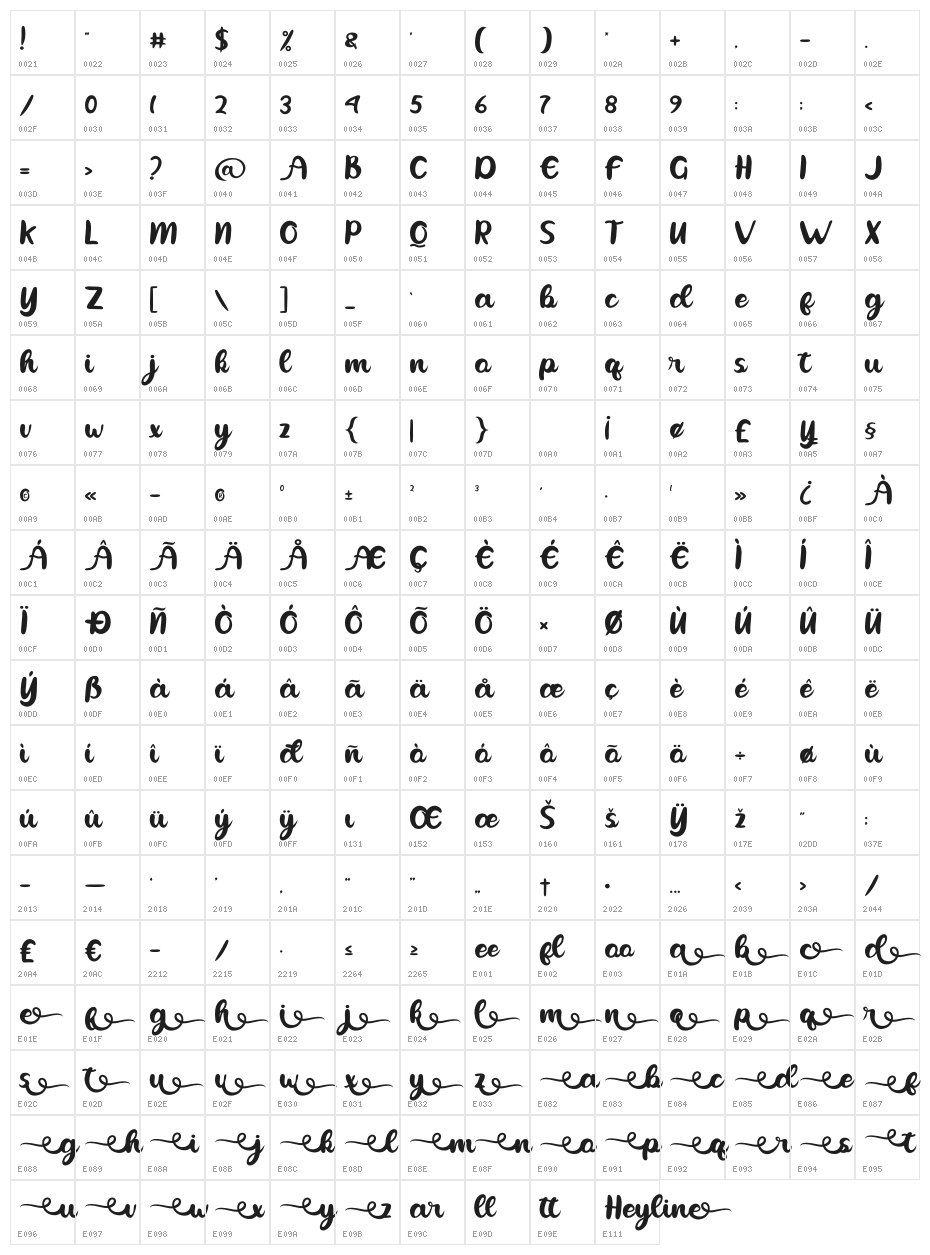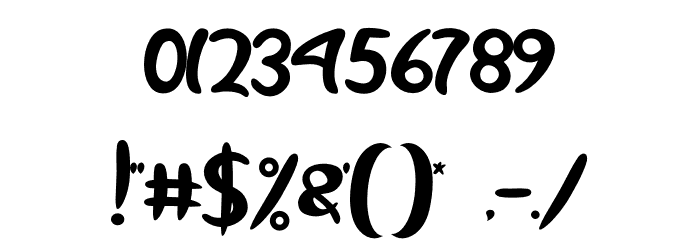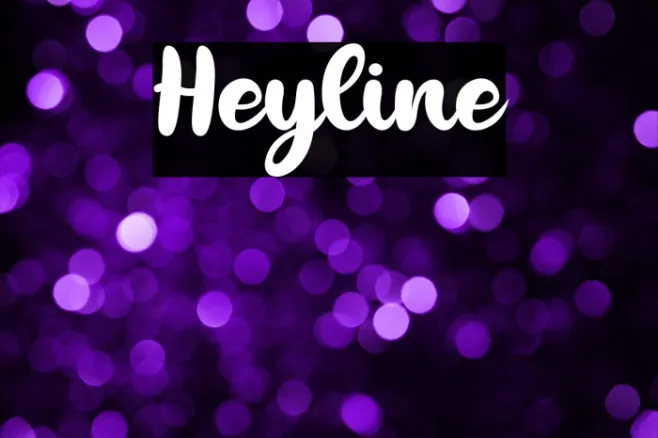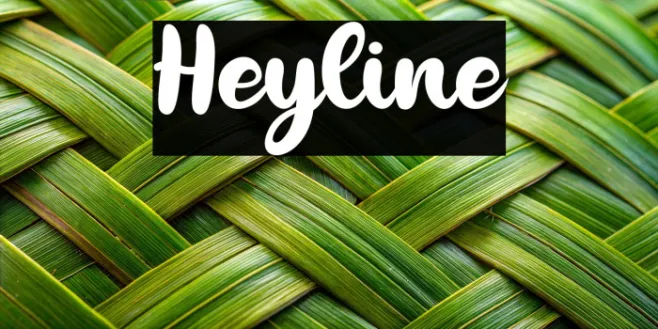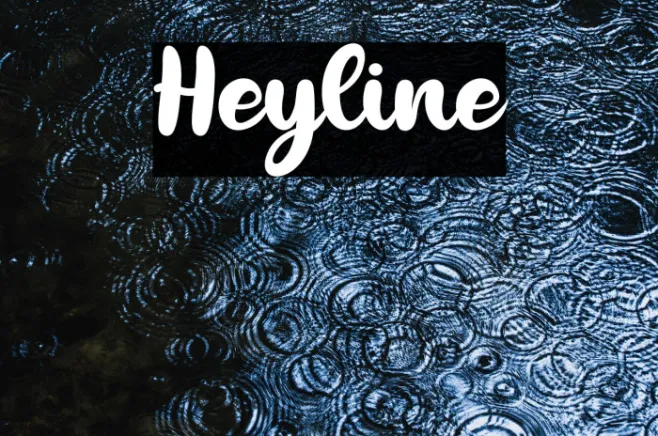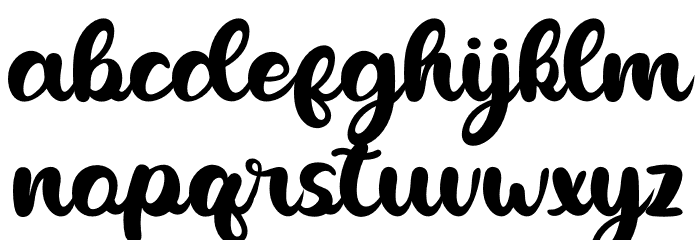
Heyline Font
Heyline Description
This font features a bold and playful script style with smooth, flowing curves and a handwritten appearance. The uppercase letters are slightly larger and more pronounced, while the lowercase letters maintain a consistent flow, enhancing readability. The numbers are rounded and maintain the playful aesthetic. Special characters are integrated seamlessly, matching the overall style. The font's thickness varies slightly, adding a dynamic feel without compromising legibility.
| Overall Style | Playful, Handwritten |
| Proposed Projects | Ideal for branding, invitations, greeting cards, and playful design projects. |